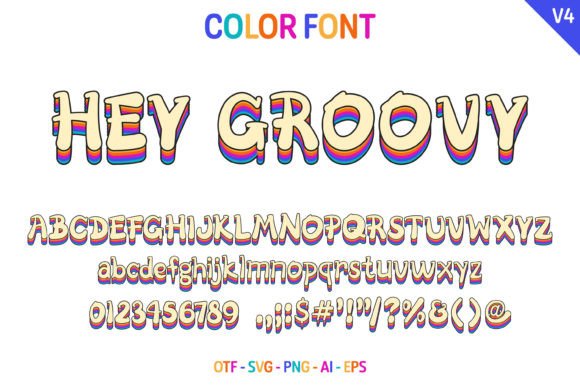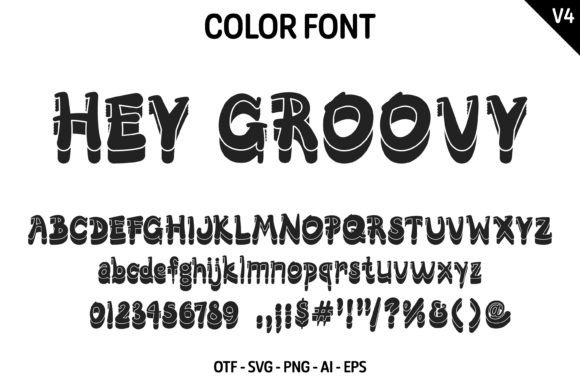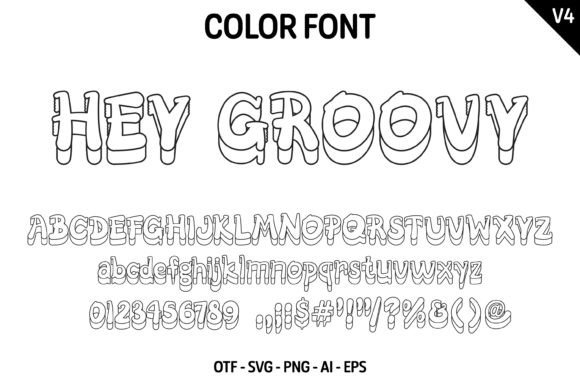
Introduction to Hey Groovy Font
Have you ever stared at a blank canvas, searching for the perfect font to bring your creative project to life? I know I have. That’s when I discovered the Hey Groovy Font – a high-quality, retro-inspired font that instantly adds a touch of nostalgia and whimsy to any design.
Whether you’re working on a poster, album cover, or social media campaign, the Hey Groovy Font is a valuable design resource that can elevate your creative project to the next level. Its unique and eye-catching letterforms make it perfect for headlines or body text, and its transparent background allows for seamless integration with any design element.
Key Features of Hey Groovy Font
- High-quality, unique font design perfect for creative projects
- Supports a wide range of languages, including Latin, Cyrillic, and Greek scripts
- Perfect for use in graphic design, digital art, and other creative projects requiring a distinctive, eye-catching font
Honest Review: Hey Groovy Font
I recently had the chance to work with the Hey Groovy Font, and I must say it’s been a game-changer for my creative project. With its free download and high quality, I was excited to see how it would perform.
- ✨ What works well: The font is incredibly versatile and can be used for a wide range of design projects, from logos to website headers.
- ✨ The transparent background makes it easy to use in conjunction with other design elements.
- ✨ The font is highly customizable, allowing for a wide range of creative expressions.
- ⚠️ The font may require some additional styling to achieve the desired effect.
Overall, I’m really impressed with the Hey Groovy Font. It’s a great addition to any designer’s toolkit and has already helped me to create some amazing designs. With its high quality and versatility, it’s definitely worth checking out.
Tips for Getting the Most Out of Hey Groovy Font
Experiment with different font sizes and colors to create visually appealing effects. Use the transparent background feature to create layered text effects. Combine Hey Groovy Font with other design elements to create unique and engaging visual content.
Hey Groovy Font is ideal for creative projects such as social media graphics, presentations, and posters. Its high quality and versatility make it a great choice for designers and non-designers alike.